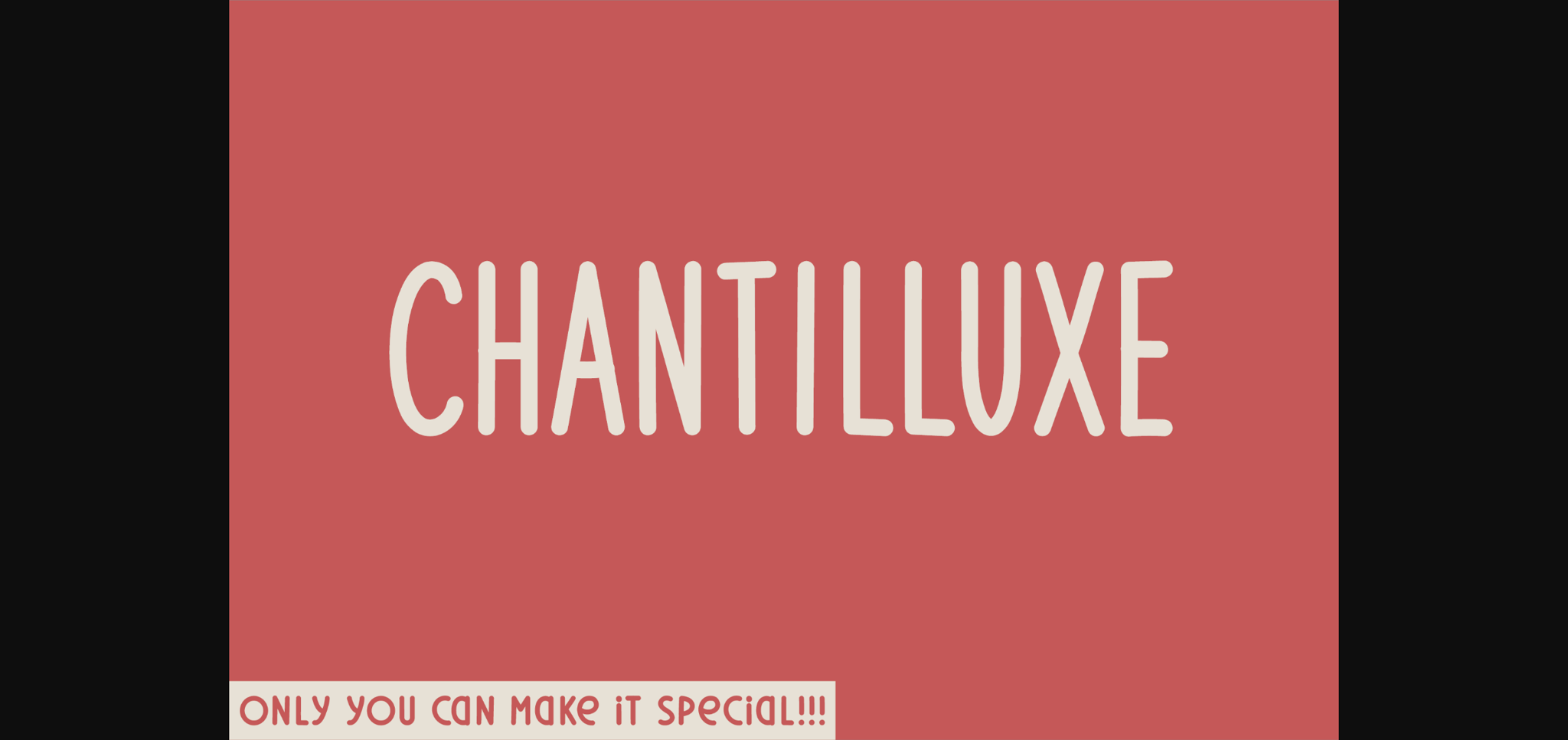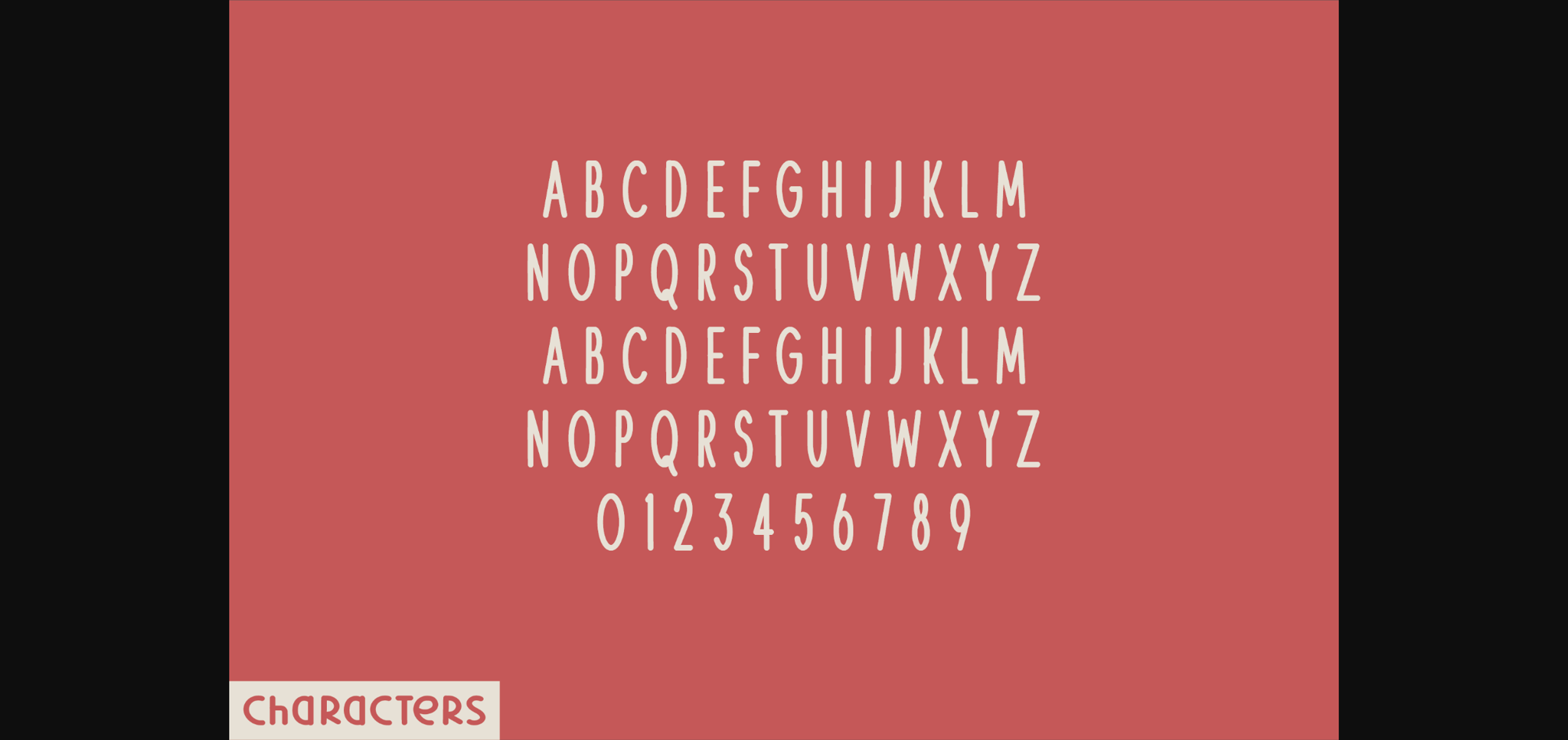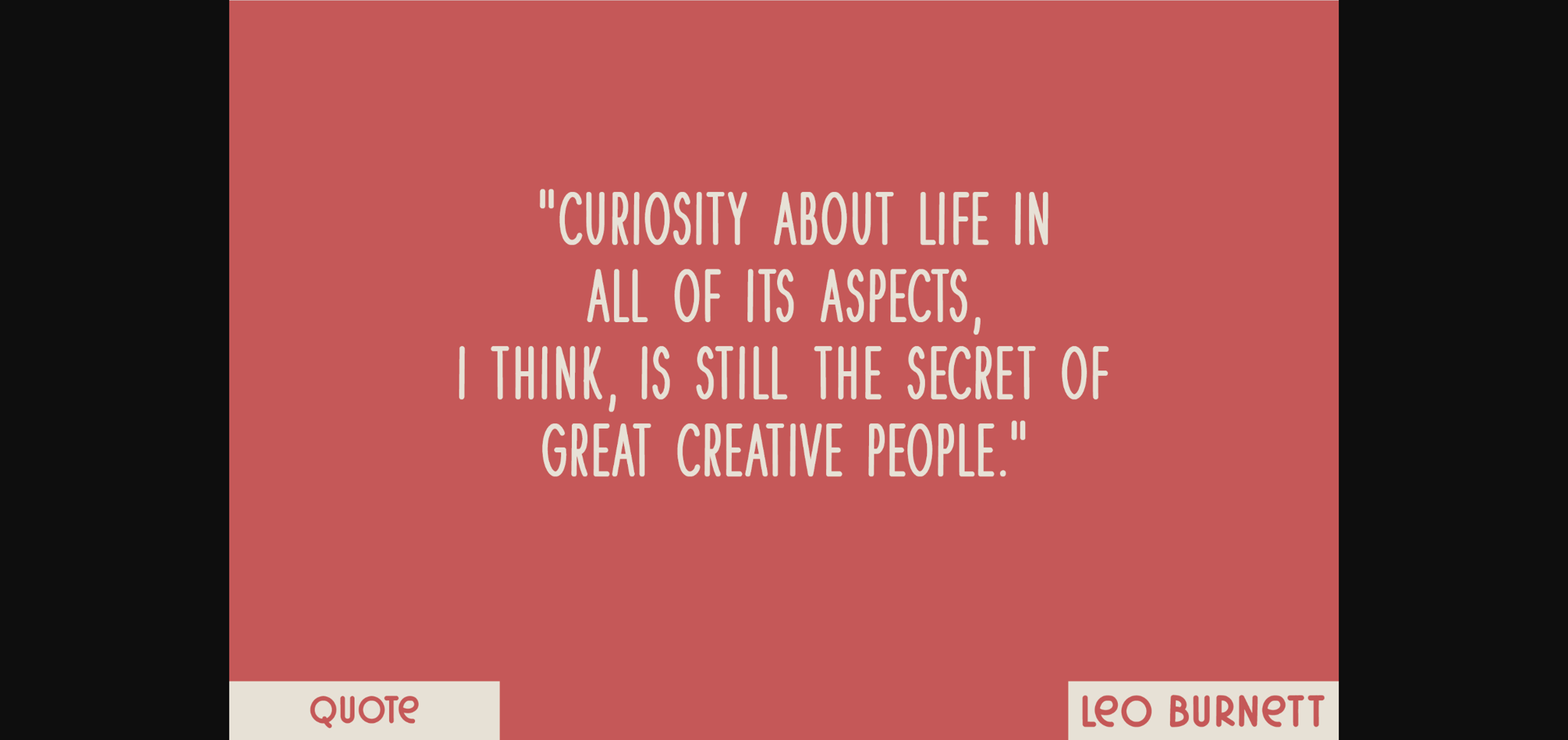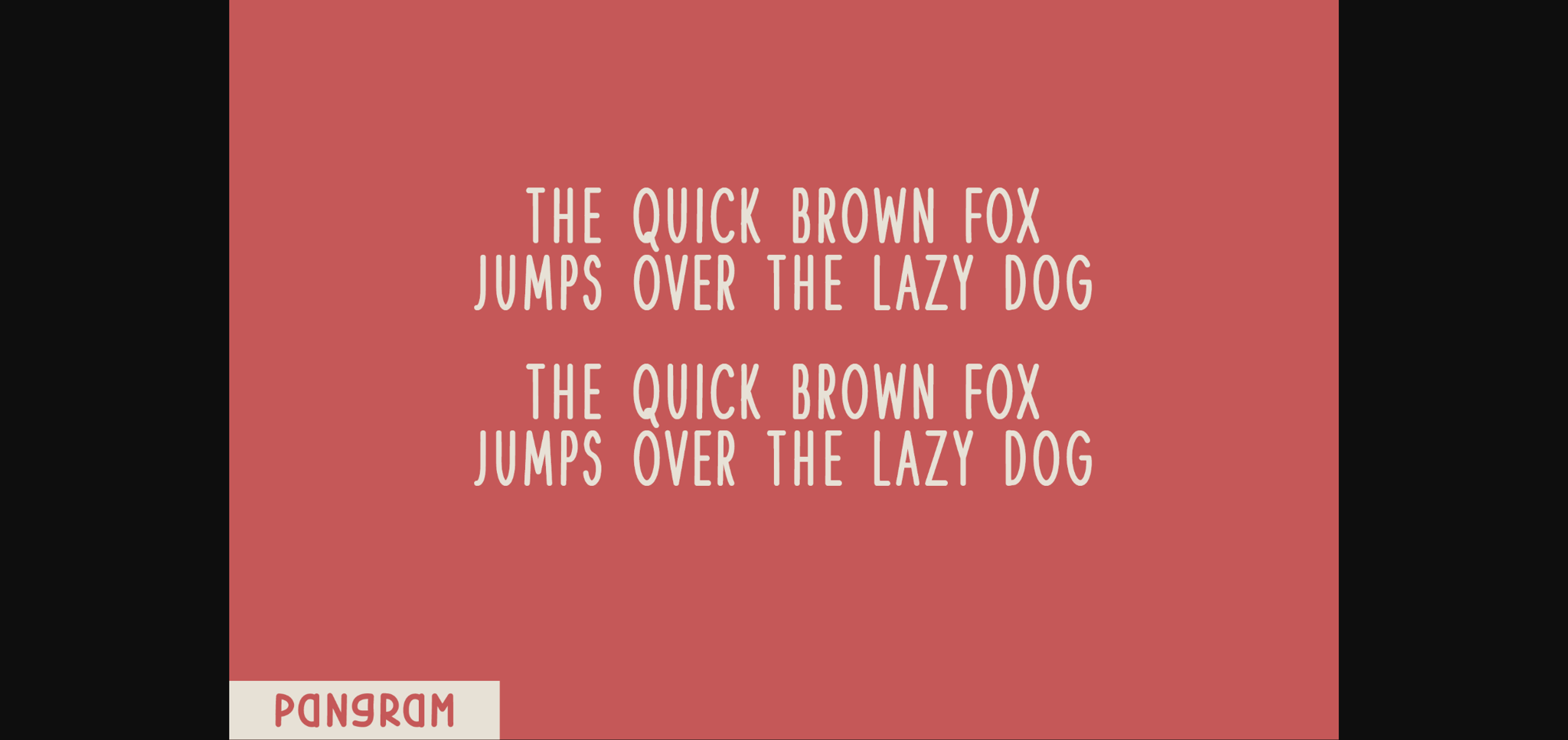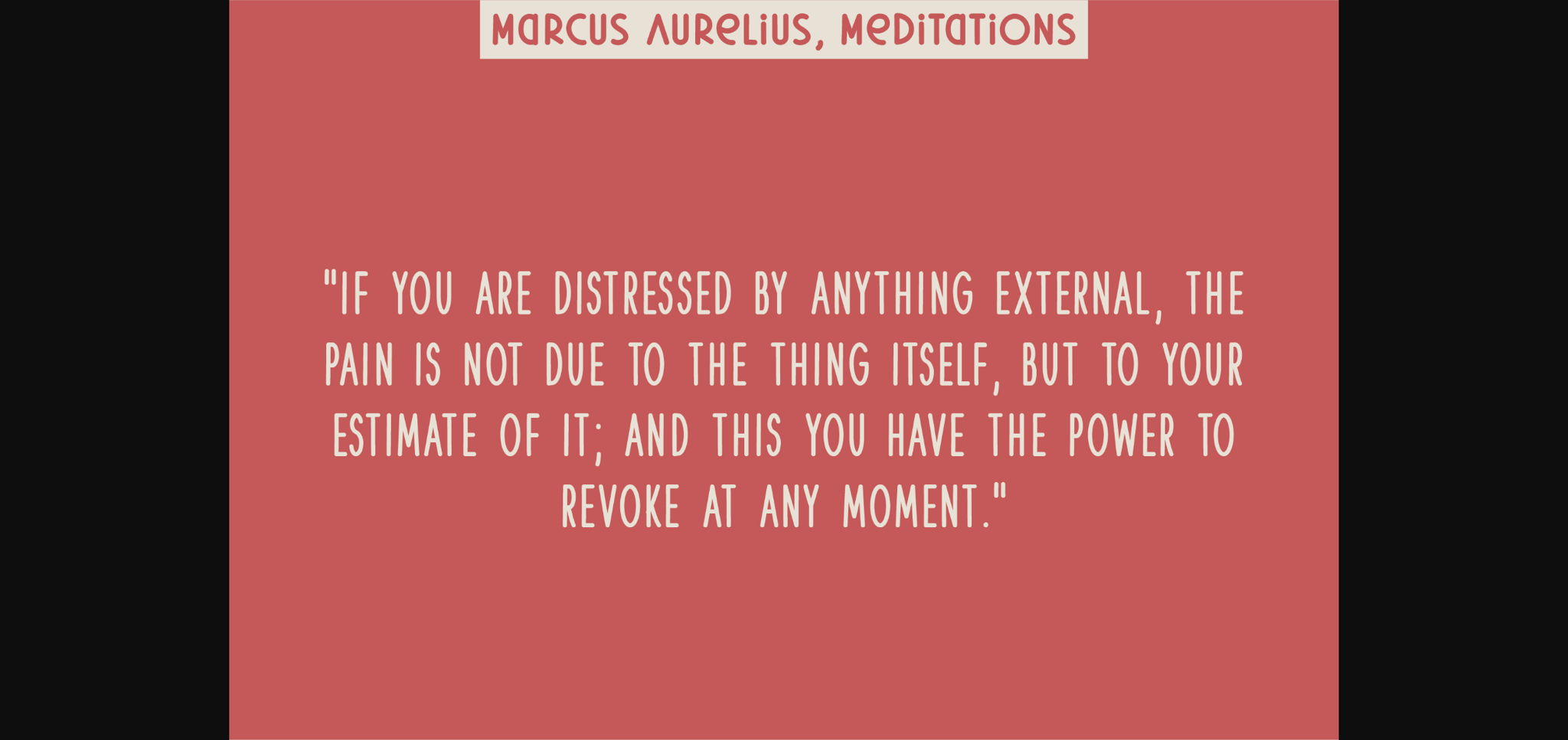
Chantilluxe Font
About Chantilluxe Font
Introducing Chantilluxe, an enchanting sans serif display font that cleverly blends uppercase letters and numbers with a seamless functionality. At the core of its design is an adorable roundness that subtly adorns the ends of each character, crafting a joyfully delicate and playful ambiance. Radiating a certain handwritten charm, Chantilluxe captures a naturally adorable aesthetic, making it the perfect choice for any design project seeking to evoke a sense of whimsy and cuteness.